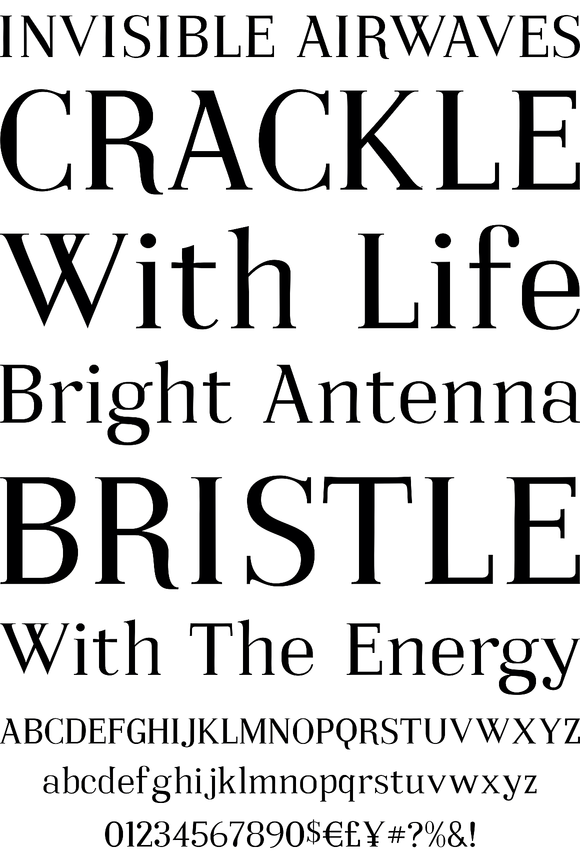
Embossanova
Foundry: Emboss Fonts
Embossanova was initially sketched to be a monospaced typeface but quickly took on a life of its own. It developed serifs and numerous arcs and stroke weights. I wanted it to retain a pre computer/unmathematical feel so there is a slight variation on curved characters and their relationship to the X height.